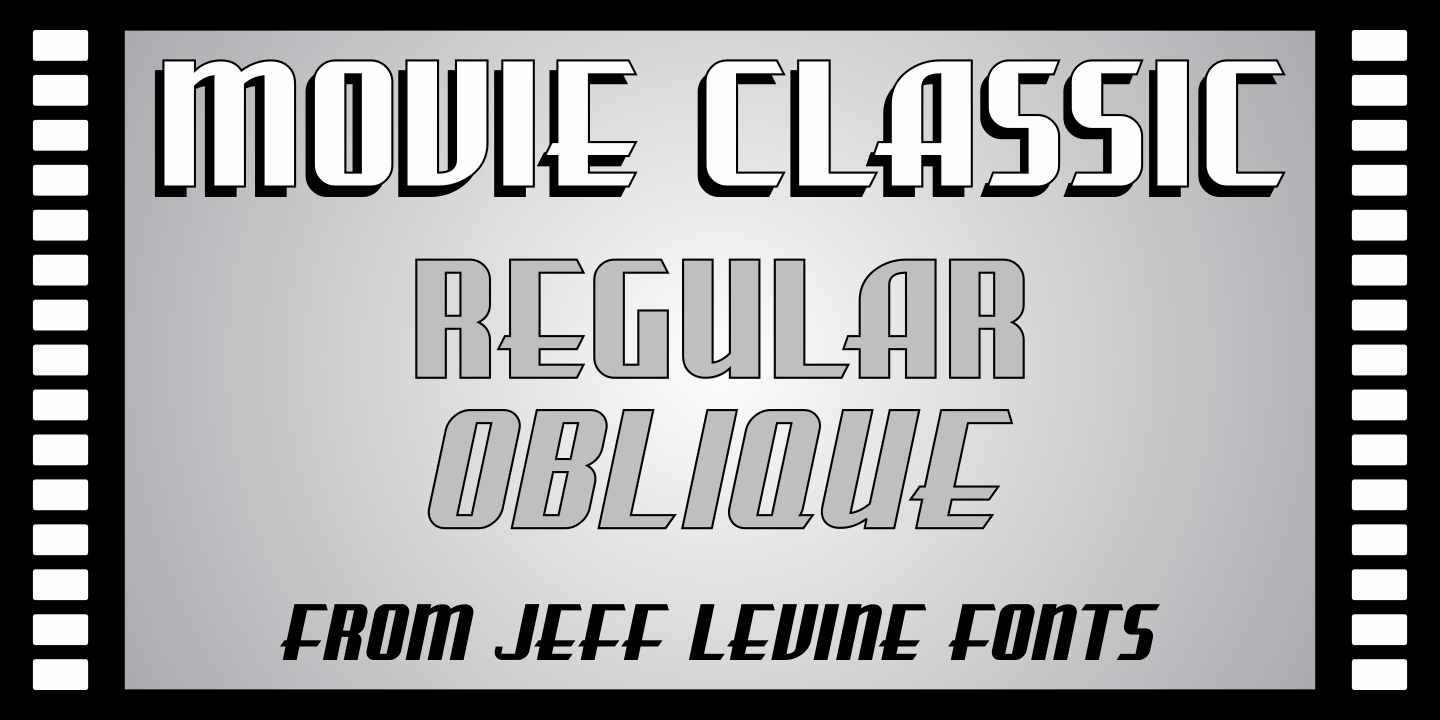
MOVIE CLASSIC JNL
Designed by Jeff Levine, Movie Classic JNL is an art deco font family. This typeface has two styles and was published by Jeff Levine Fonts.
The hand lettered title card from the 1935 melodrama “Magnificent Obsession” inspired the digital revival Movie Classic JNL; available in both regular and oblique versions.